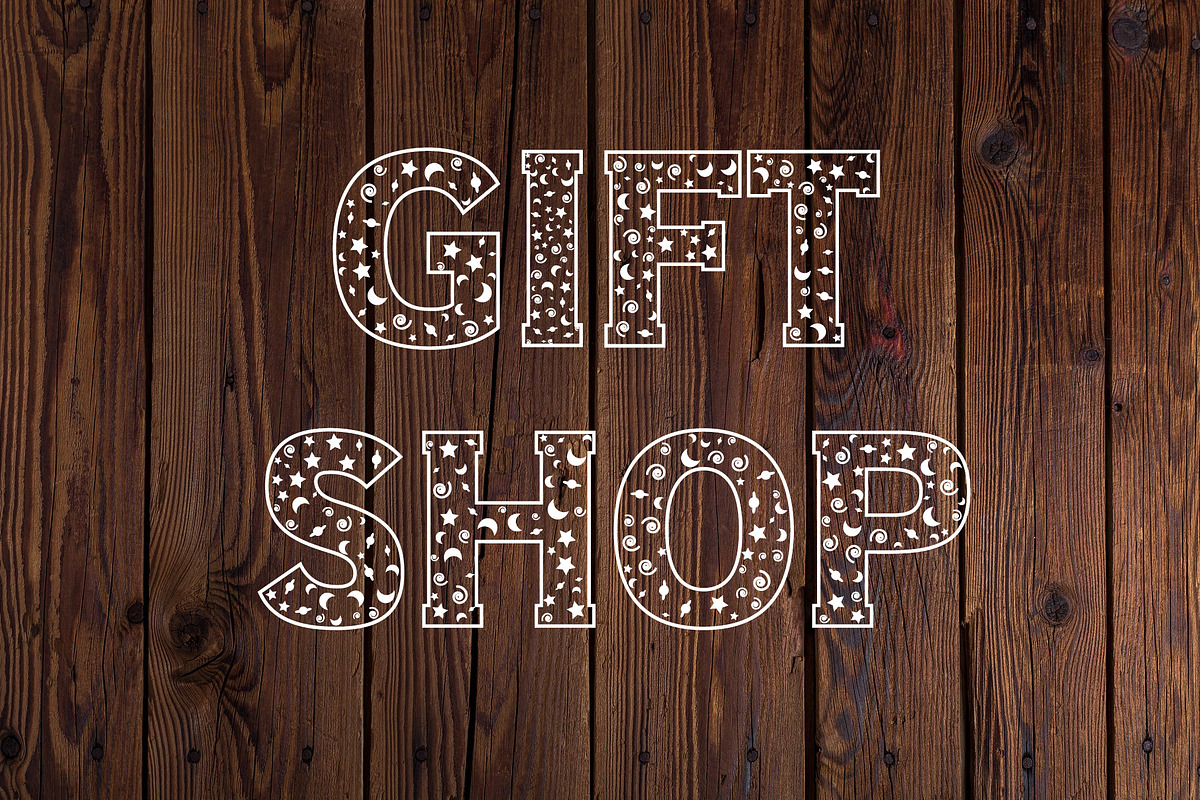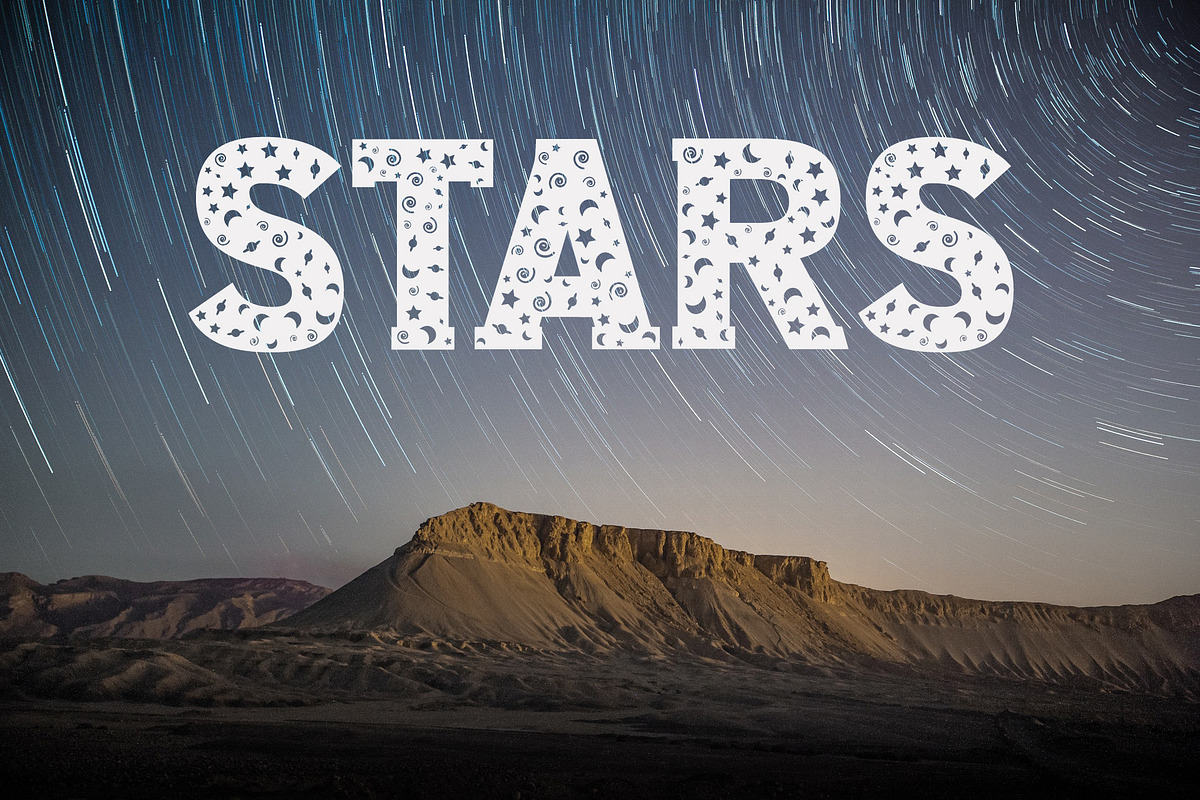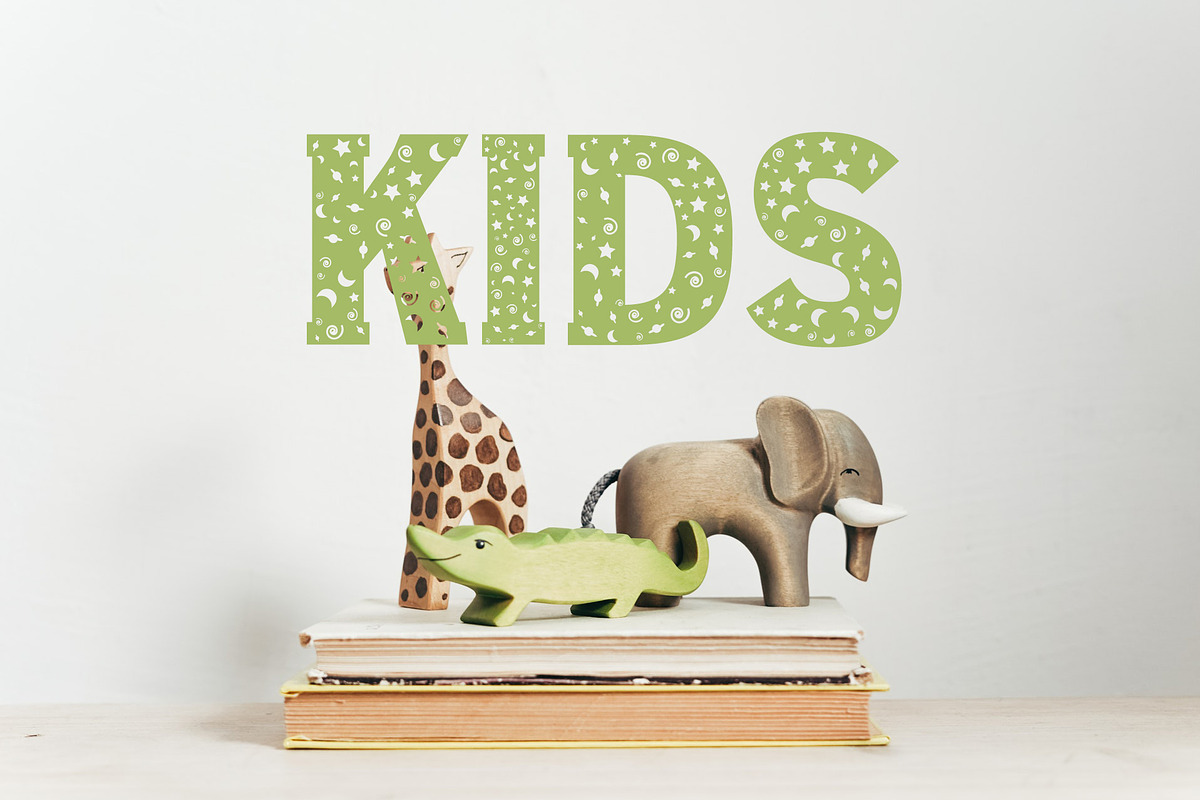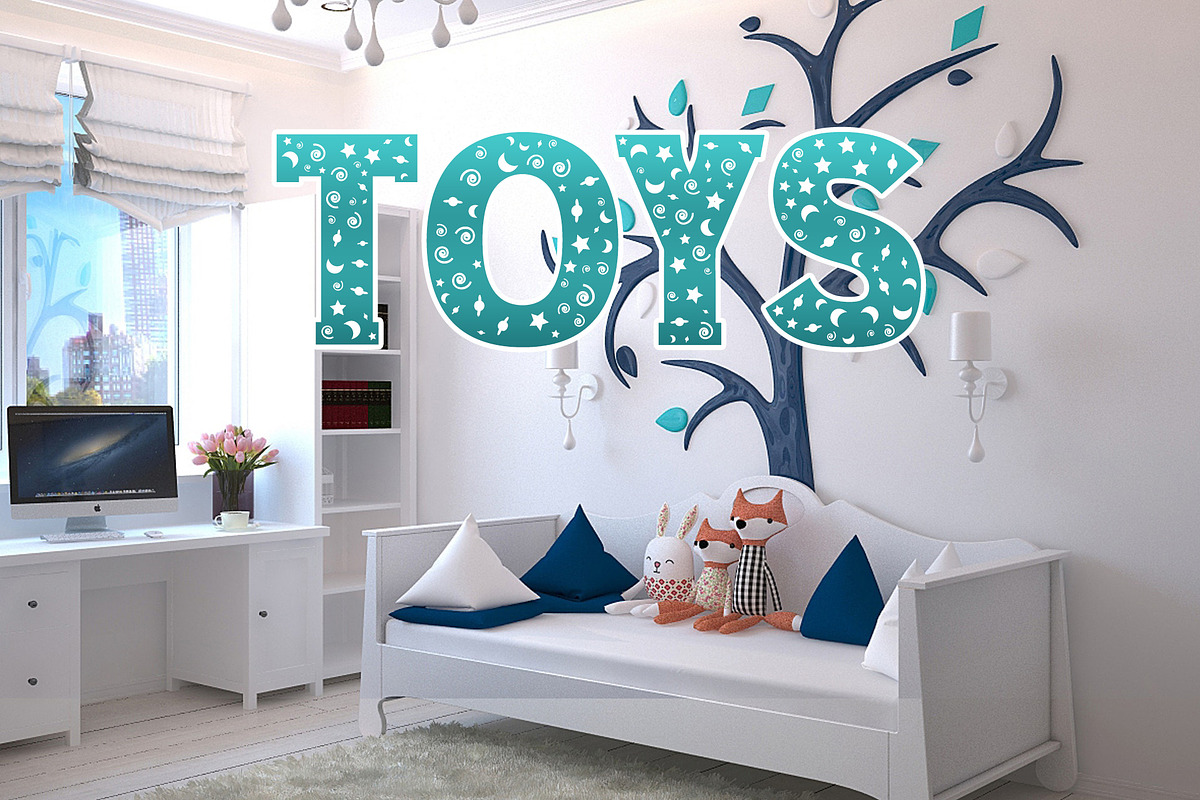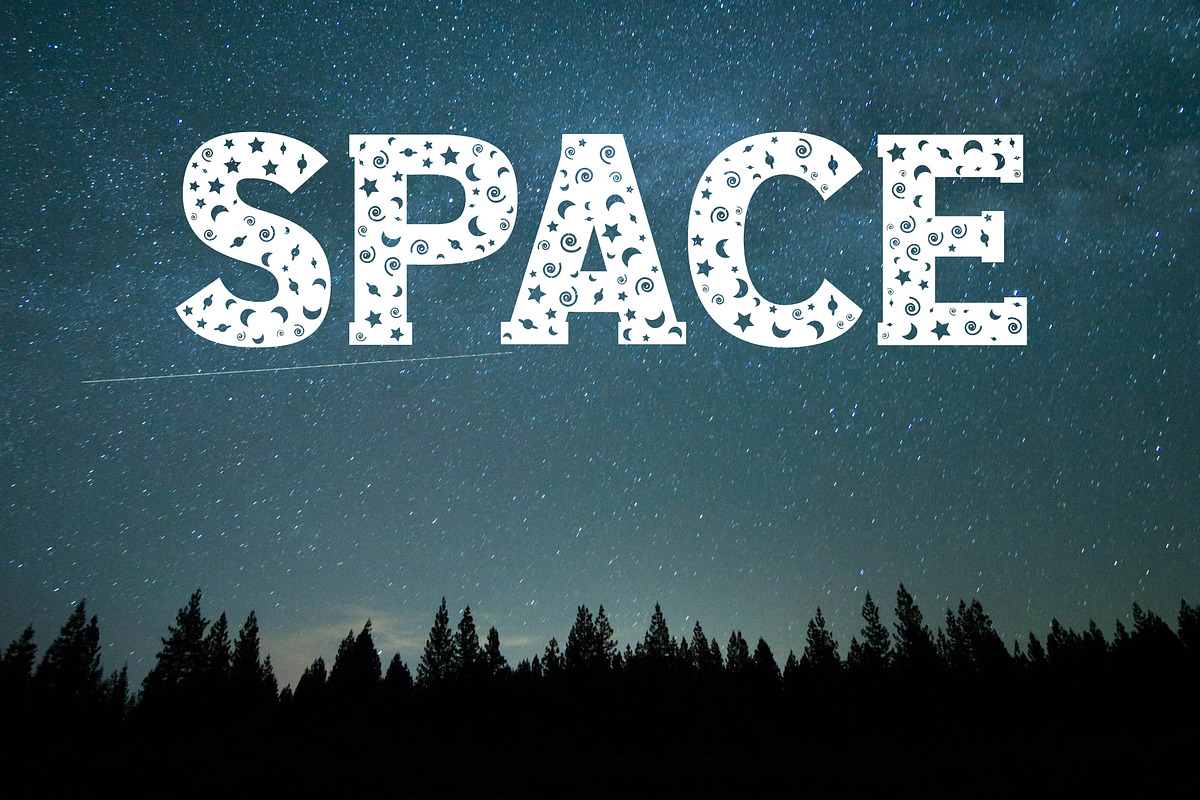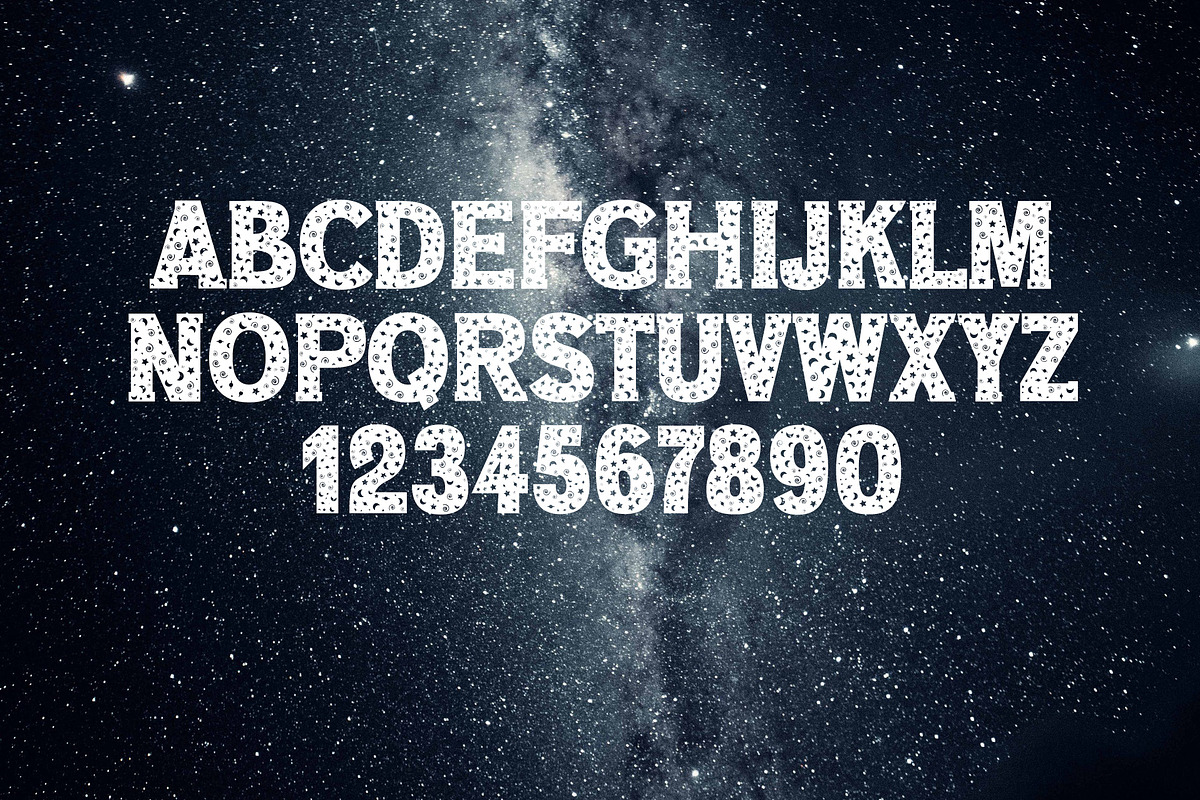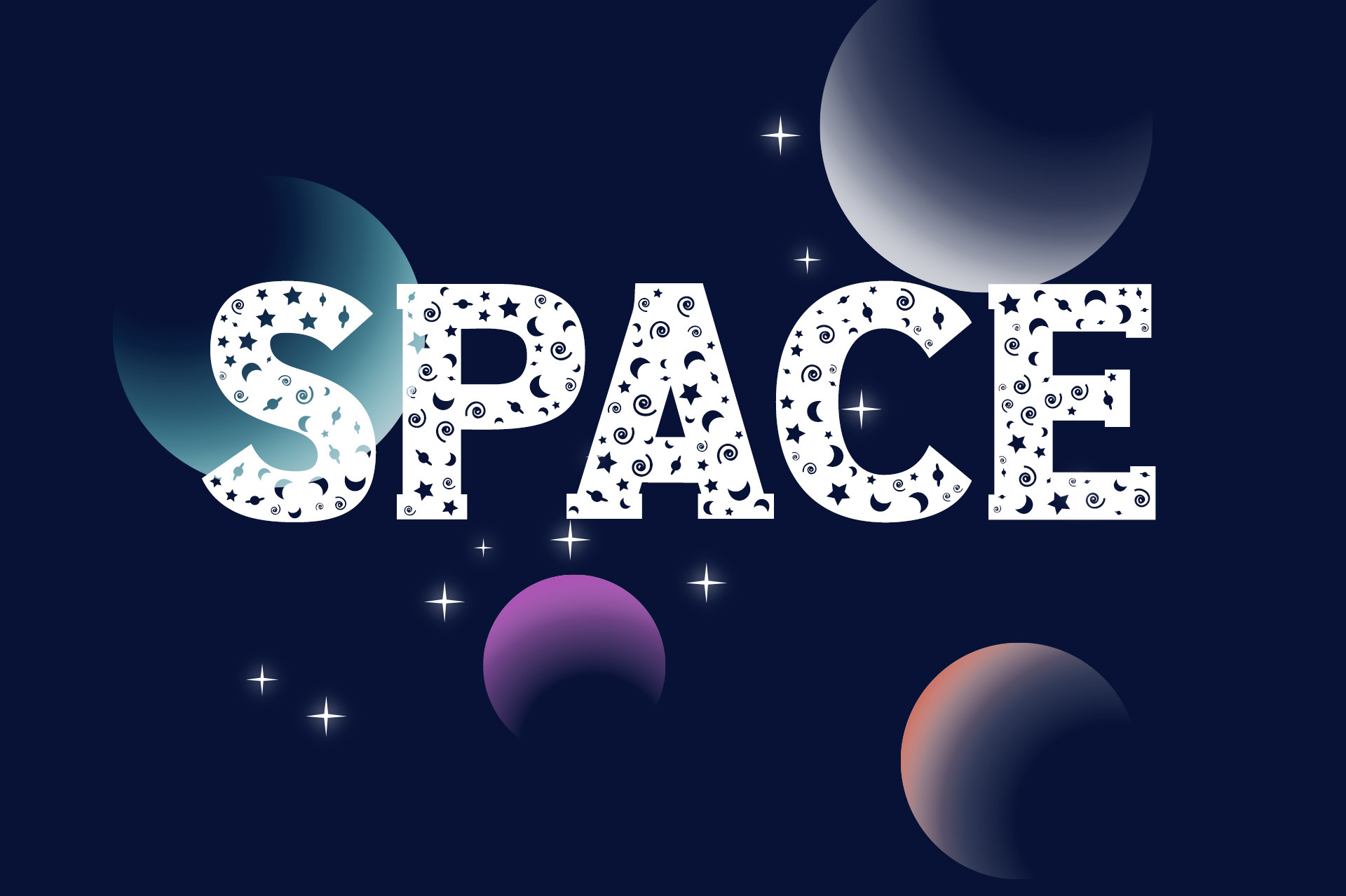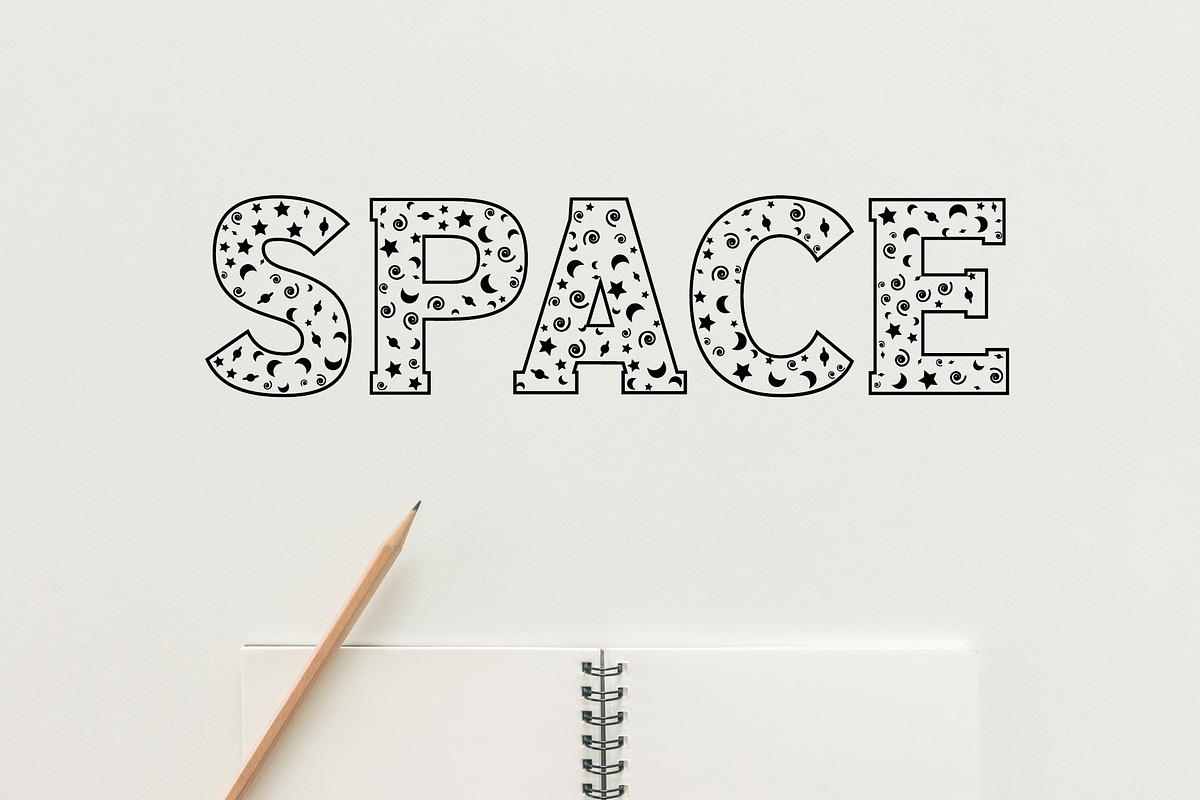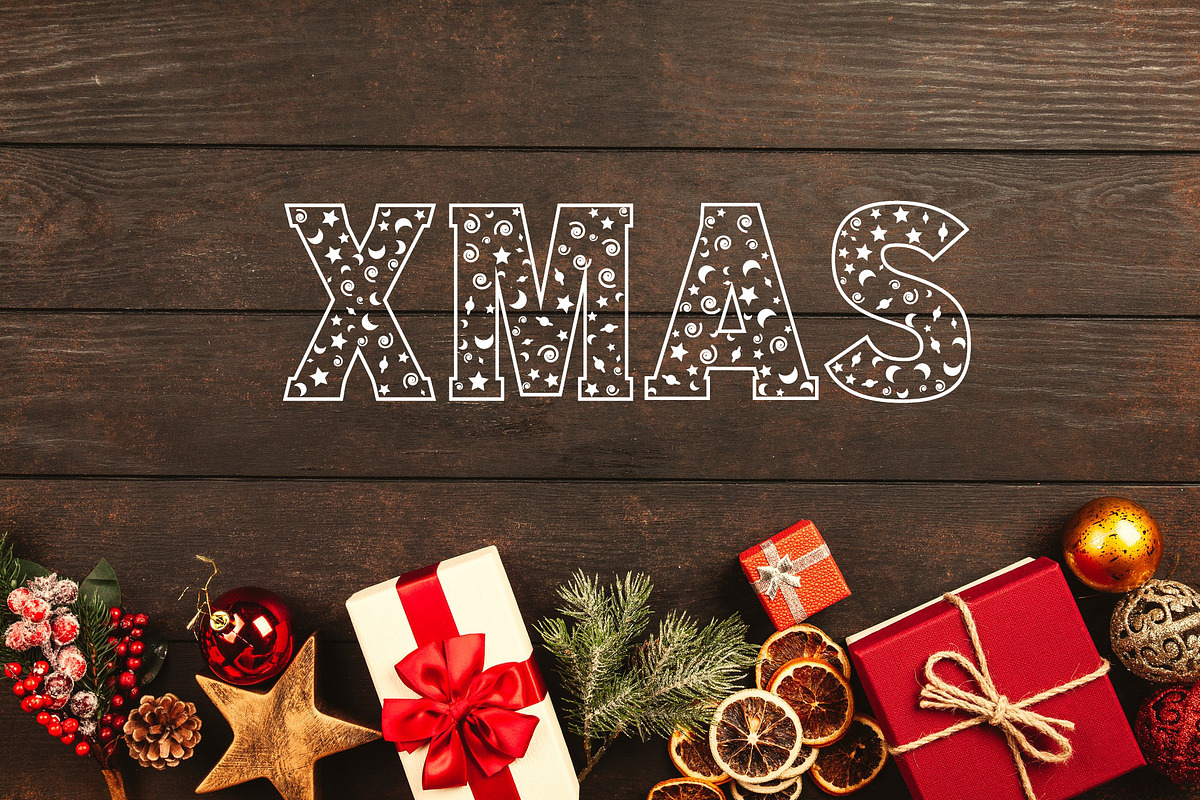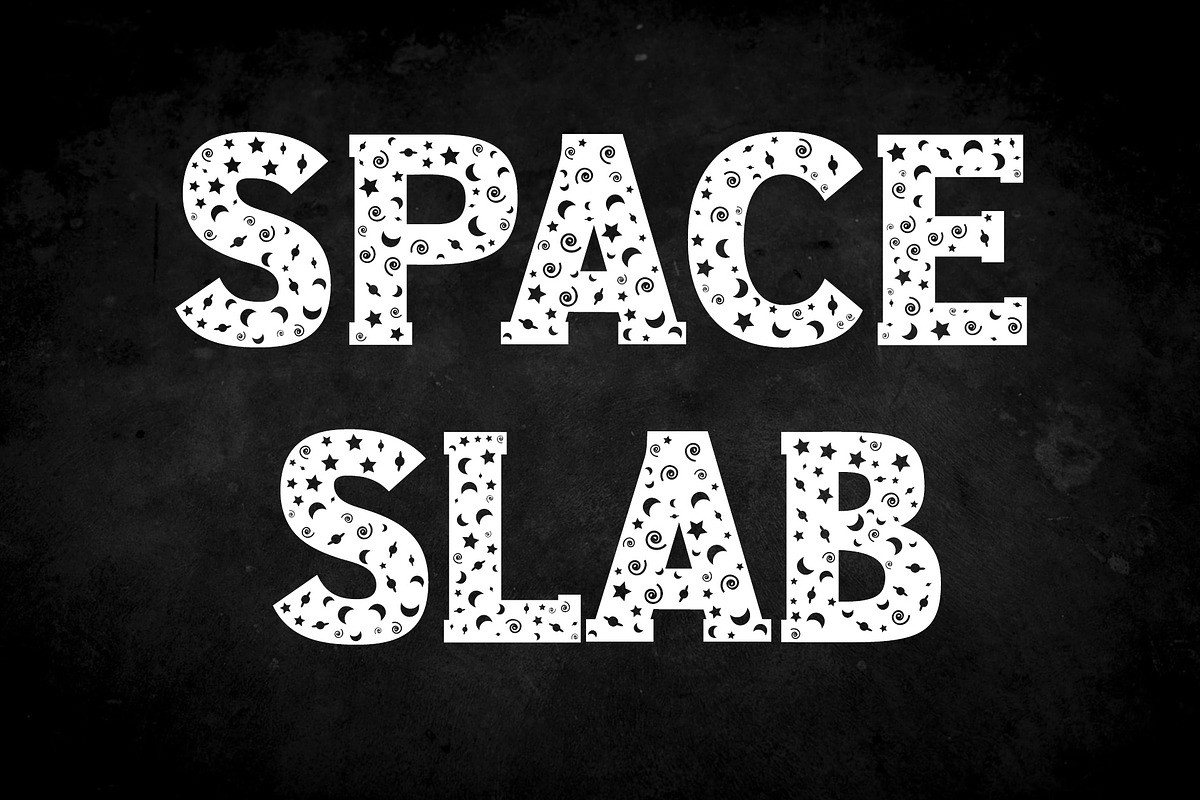
Space Slab Font
Space Slab Typeface.
Space is an incredibly unique and interesting decorative font with a space theme. Its bold and chunky letters make this font adept to a wide variety of designs. Space will turn any creative idea into a true standout!
Comes with two variances: Space Slab and Space Slab Empty.